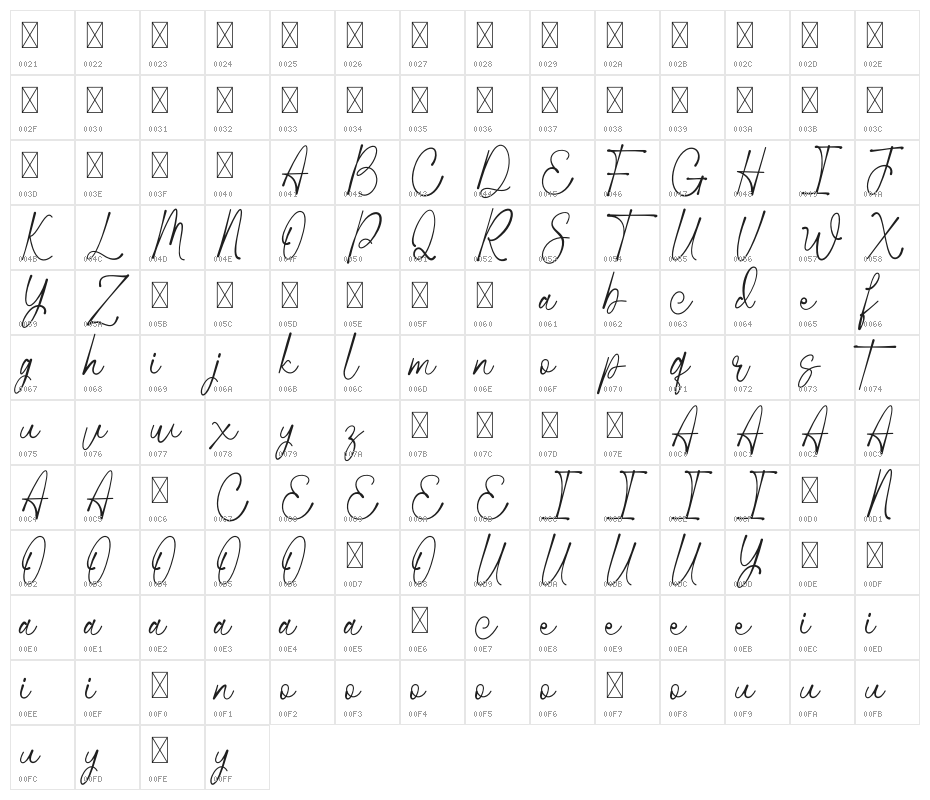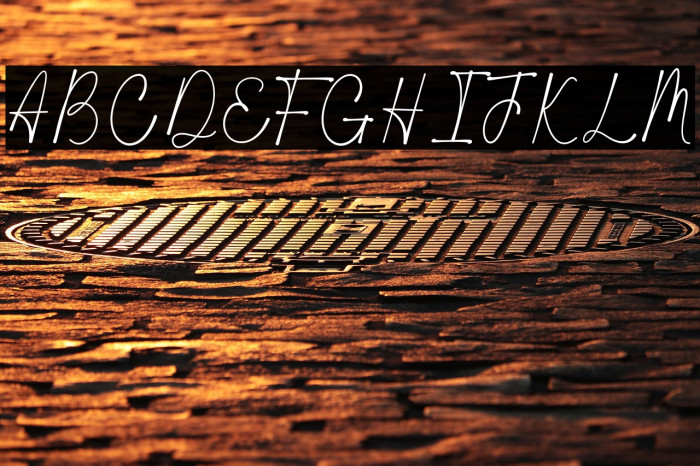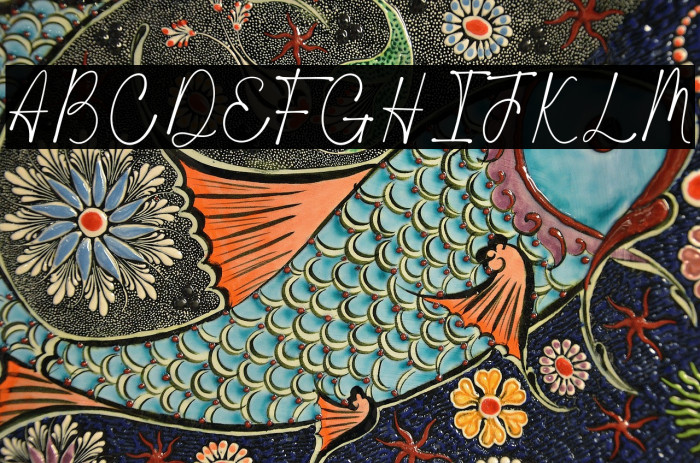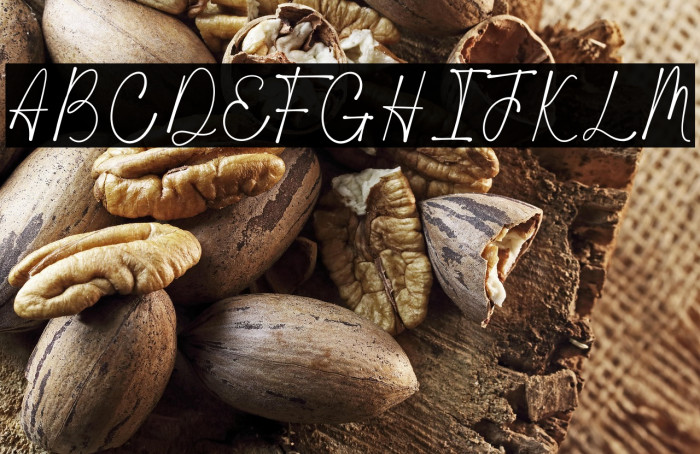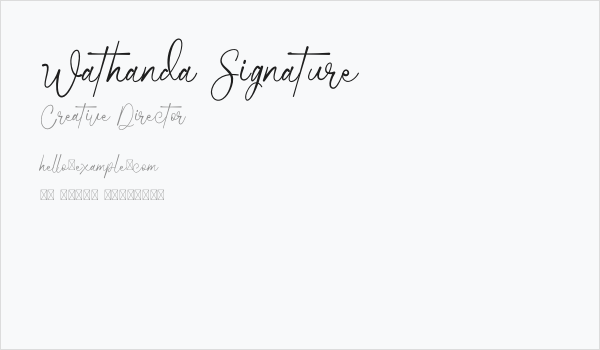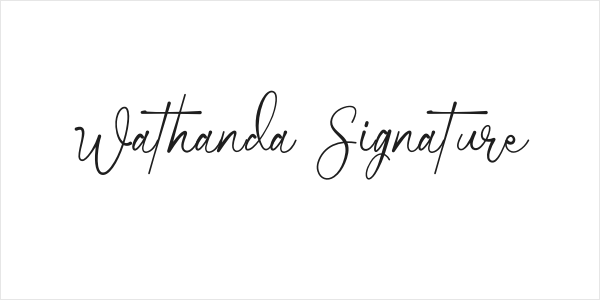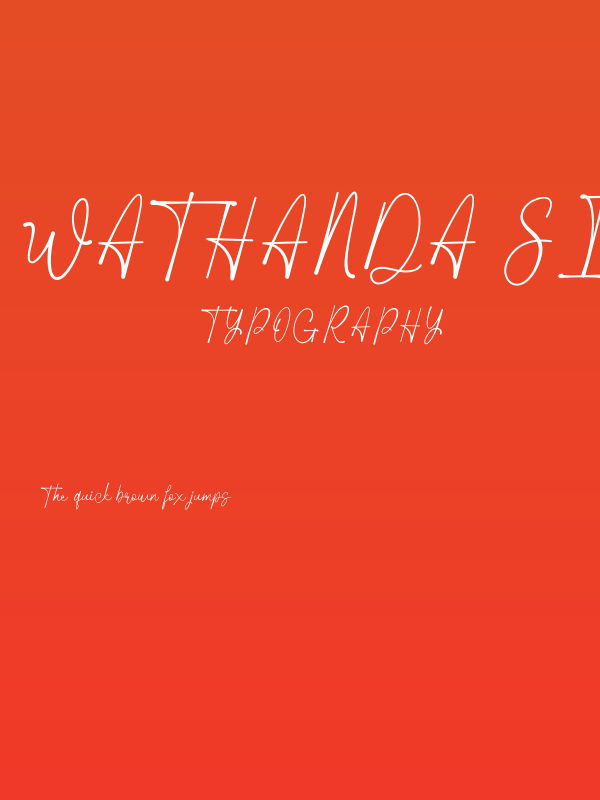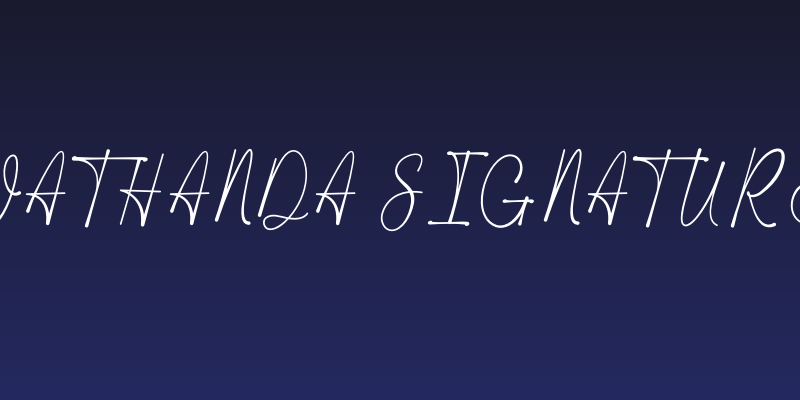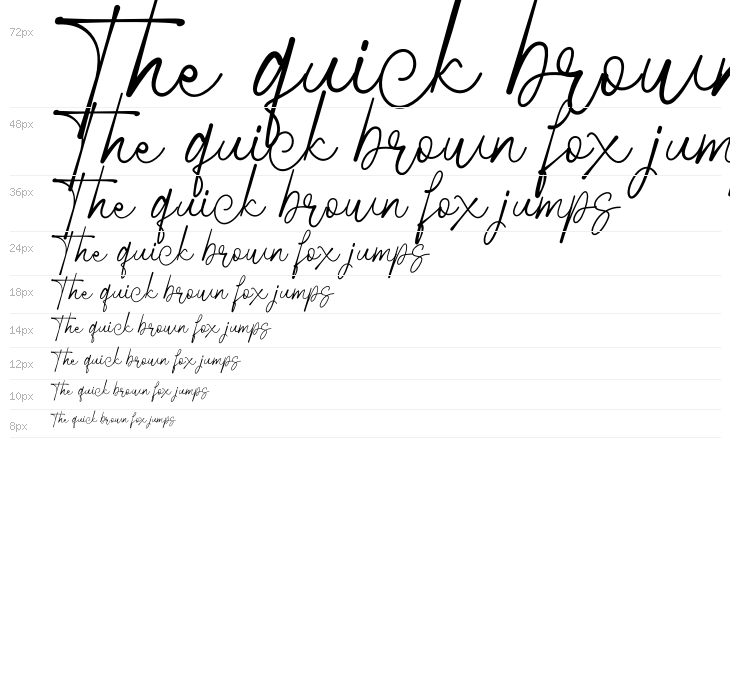
Wathanda Signature Font
Wathanda Signature Description
This font exudes a sophisticated and elegant handwritten style, characterized by its fluid and graceful strokes. The uppercase letters are tall and slender, with a slight slant that adds a dynamic feel. The lowercase letters are more rounded and connected, creating a seamless flow that mimics natural handwriting. The overall appearance is both stylish and legible, making it suitable for a variety of design projects. The font's delicate lines and smooth curves give it a refined and modern touch, perfect for adding a personal and artistic flair to any text.